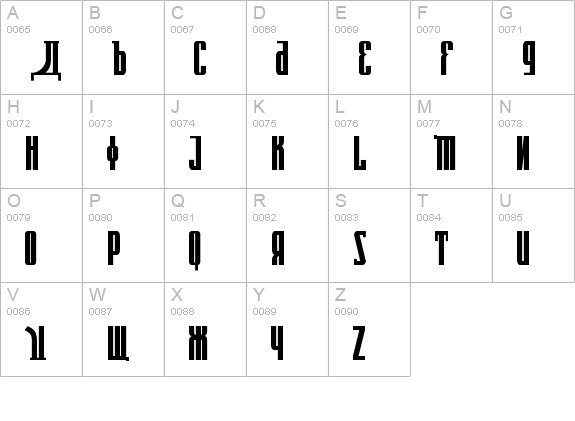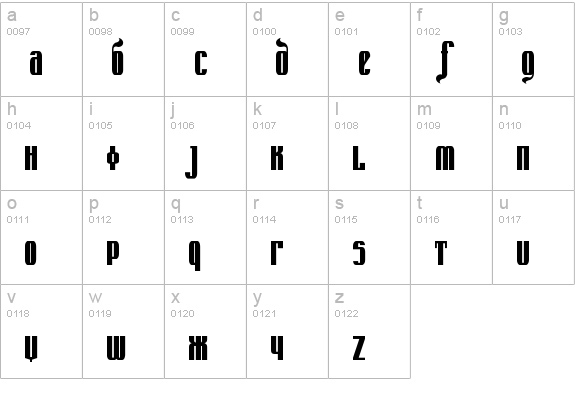
Kremlin Emperor Bold is a strong, high-contrast variant in the Kremlin typeface family \xE2\x80\x94 well suited to headlines, attention-grabbing titles, and strong calls-to-action.
Kremlin Emperor Bold font is a majestic and powerful typeface that exudes a sense of grandeur and authority. Its bold and striking letterforms capture attention and make a bold statement in any design project. With its elegant curves and strong lines, Kremlin Emperor Bold font commands attention and demands to be noticed. This font is perfect for creating impactful headlines, logos, and branding materials. Its regal appearance adds a touch of sophistication and elegance to any design, making it ideal for projects that require a sense of prestige and importance. But what makes Kremlin Emperor Bold font even more impressive is that it is freely available to download at FontsMarket.com. Yes, you read that right – this stunning font can be yours without spending a penny. Whether you're a professional designer or a casual enthusiast, this font offers you the opportunity to add a touch of royalty to your designs without breaking the bank. So why wait? Download Kremlin Emperor Bold font today and harness its commanding presence to elevate your designs to new heights. With its free availability and undeniable visual impact, this font is a must-have for anyone looking to make a bold statement with their typography. Don't miss out on the opportunity to add a touch of regality to your designs – get Kremlin Emperor Bold font now, exclusively at FontsMarket.com.